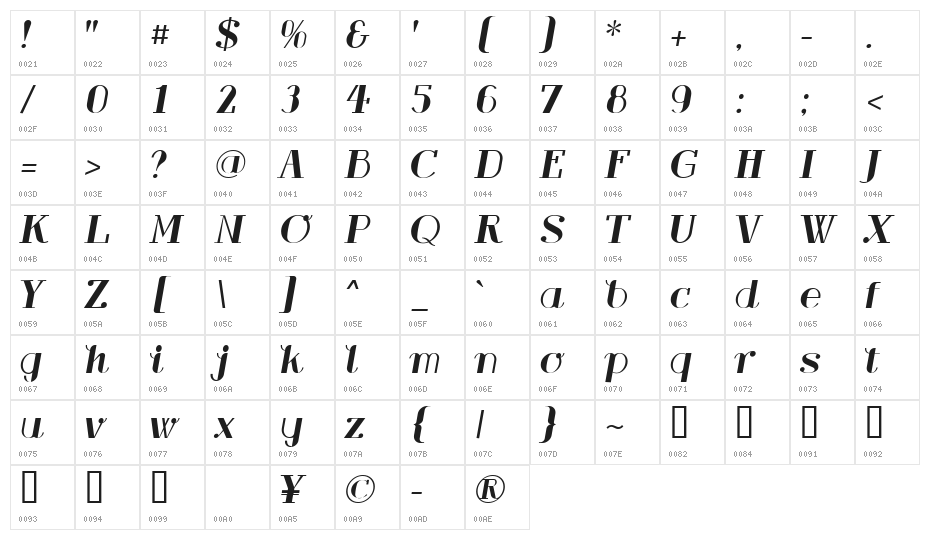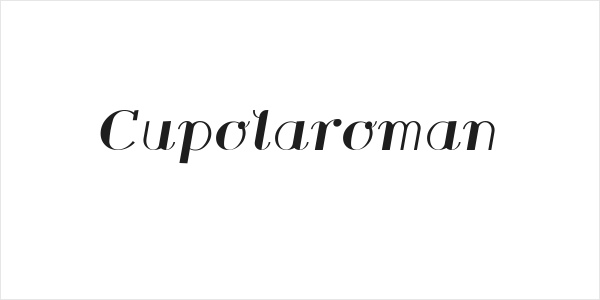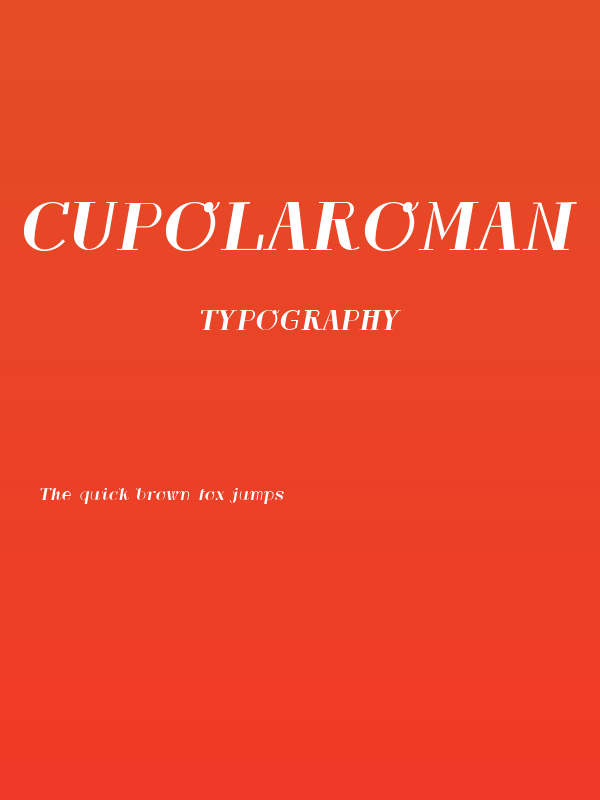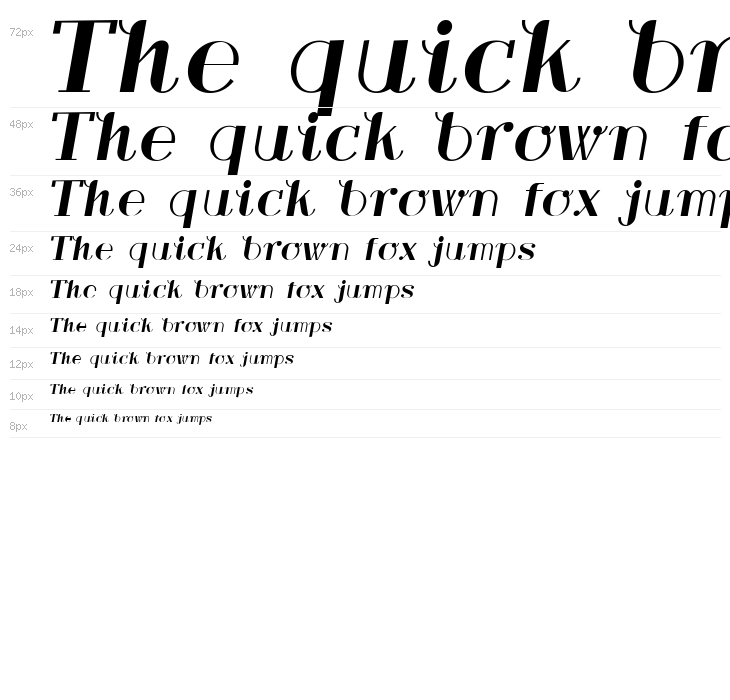
Cupolaroman Font
Cupolaroman Description
This font exhibits a modern and elegant style with a distinct italic slant, giving it a dynamic and sophisticated appearance. The characters have a high contrast between thick and thin strokes, which adds to its refined and stylish look. The uppercase letters are bold and commanding, while the lowercase letters maintain a graceful flow. The numerals are clear and well-defined, making them easily readable. Special characters are designed with the same attention to detail, ensuring consistency throughout the font. The overall design is suitable for projects that require a touch of elegance and modernity.
| Overall Style | Modern, Elegant |
| Proposed Projects | Ideal for luxury branding, fashion magazines, elegant invitations, and high-end product packaging. |